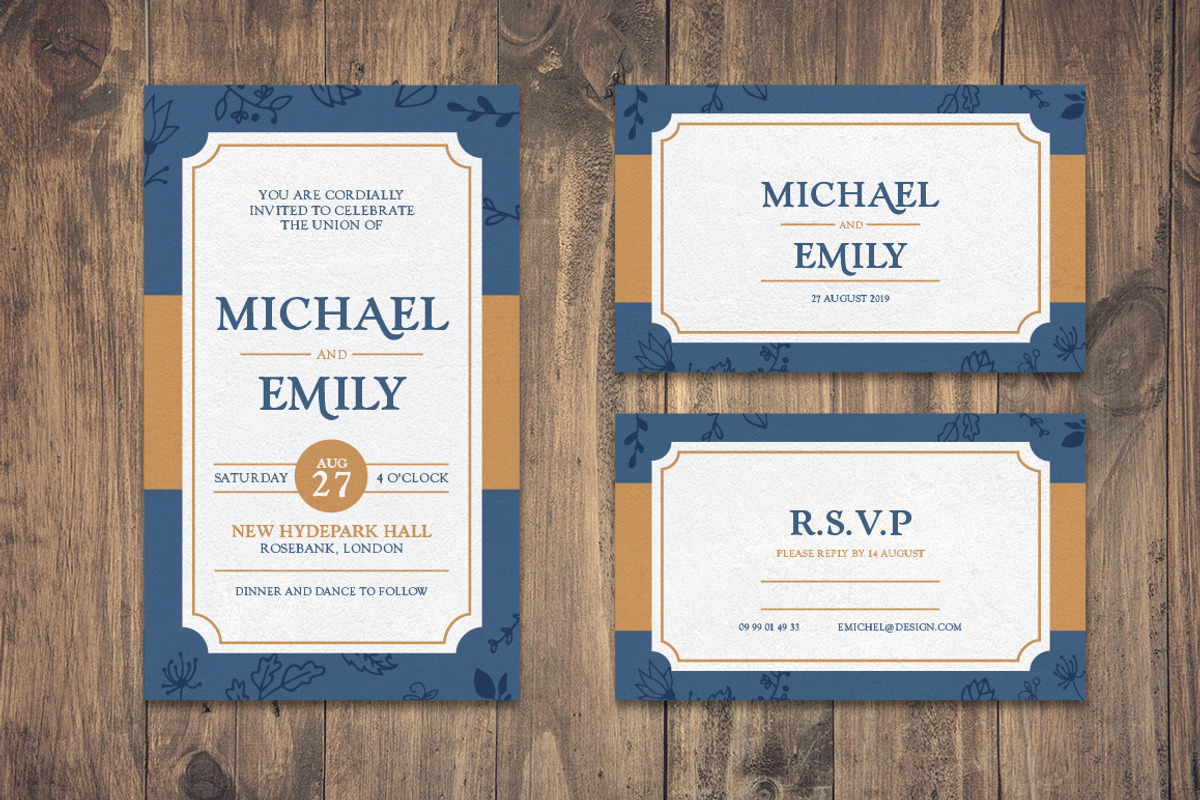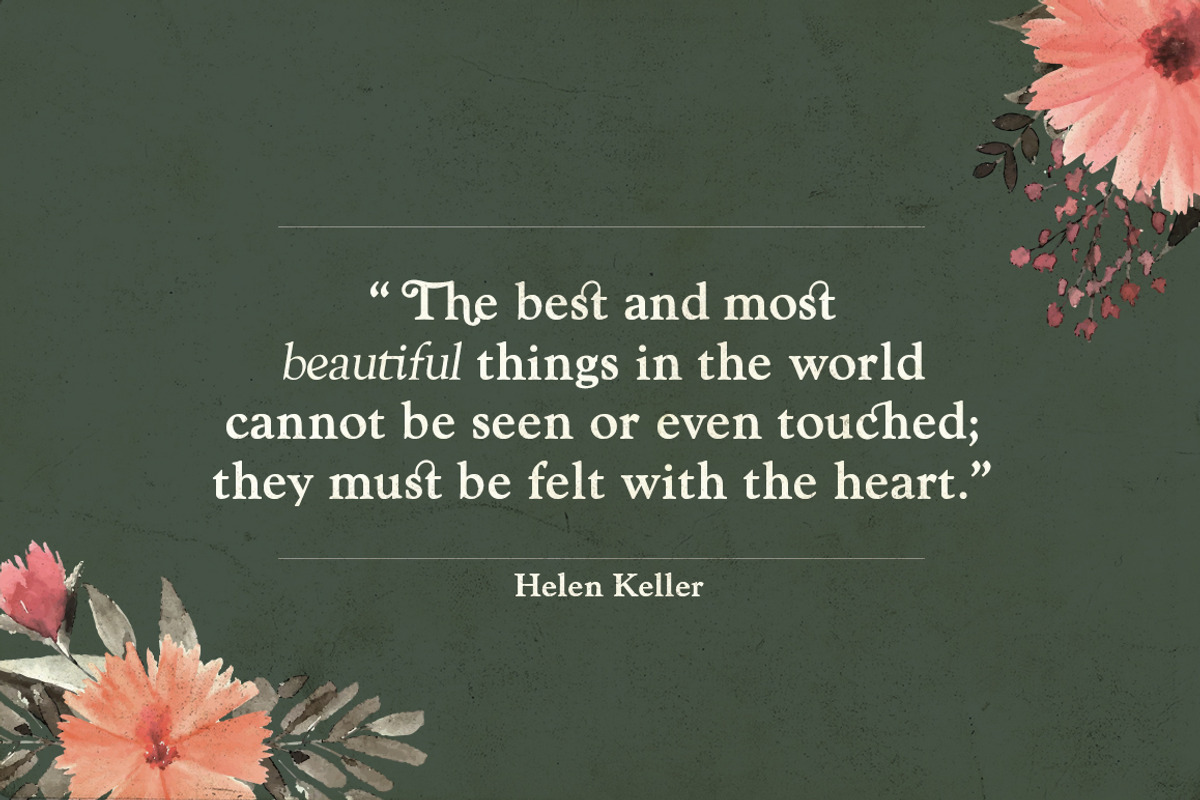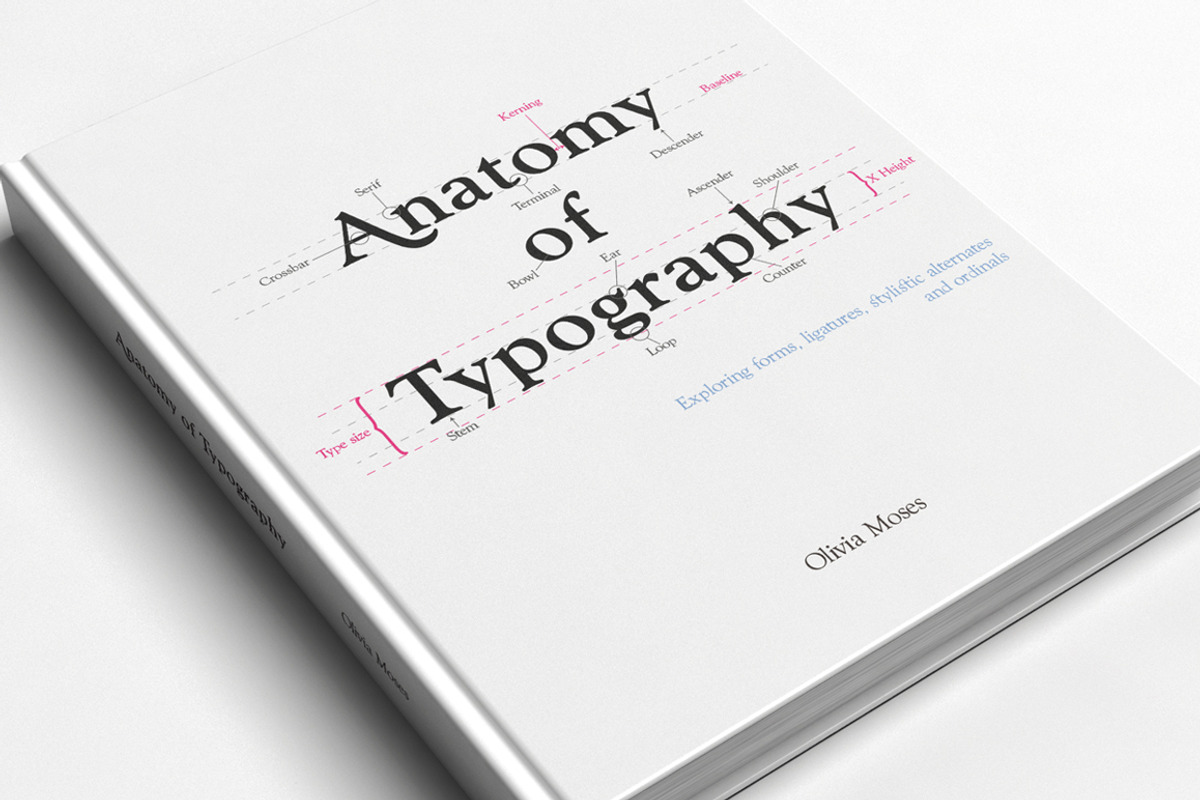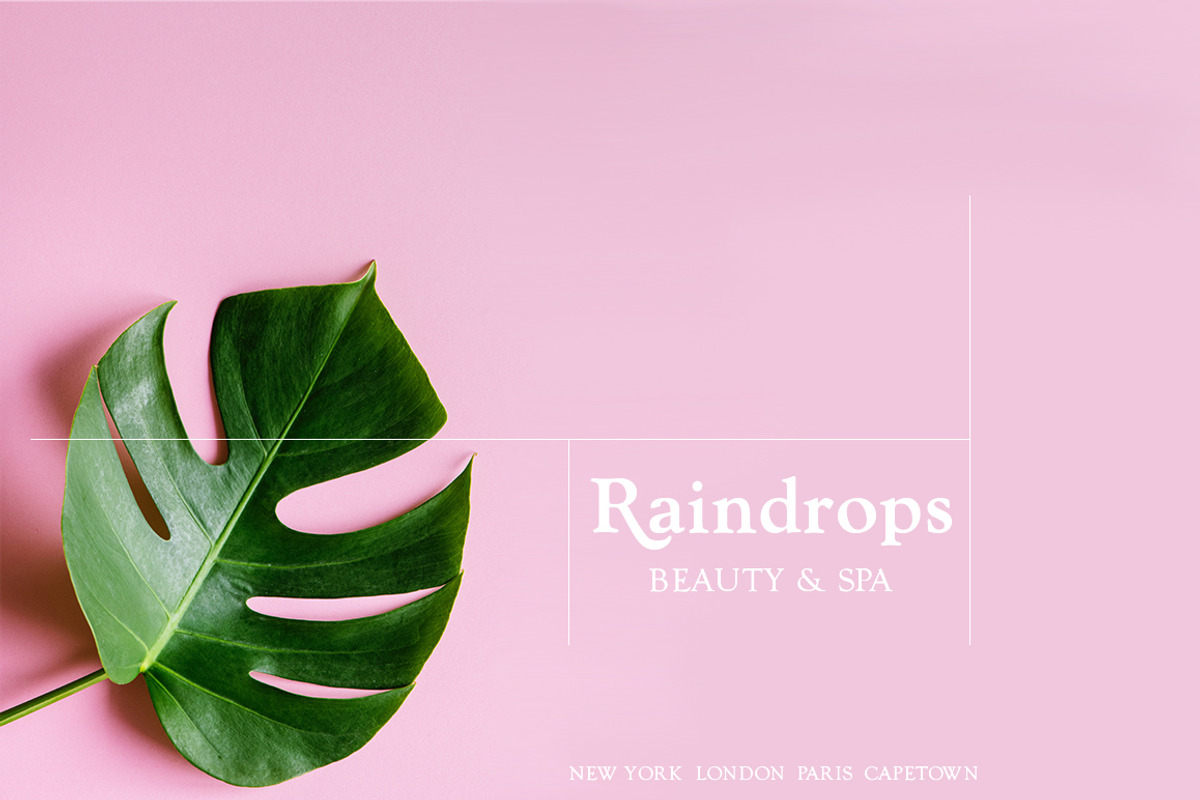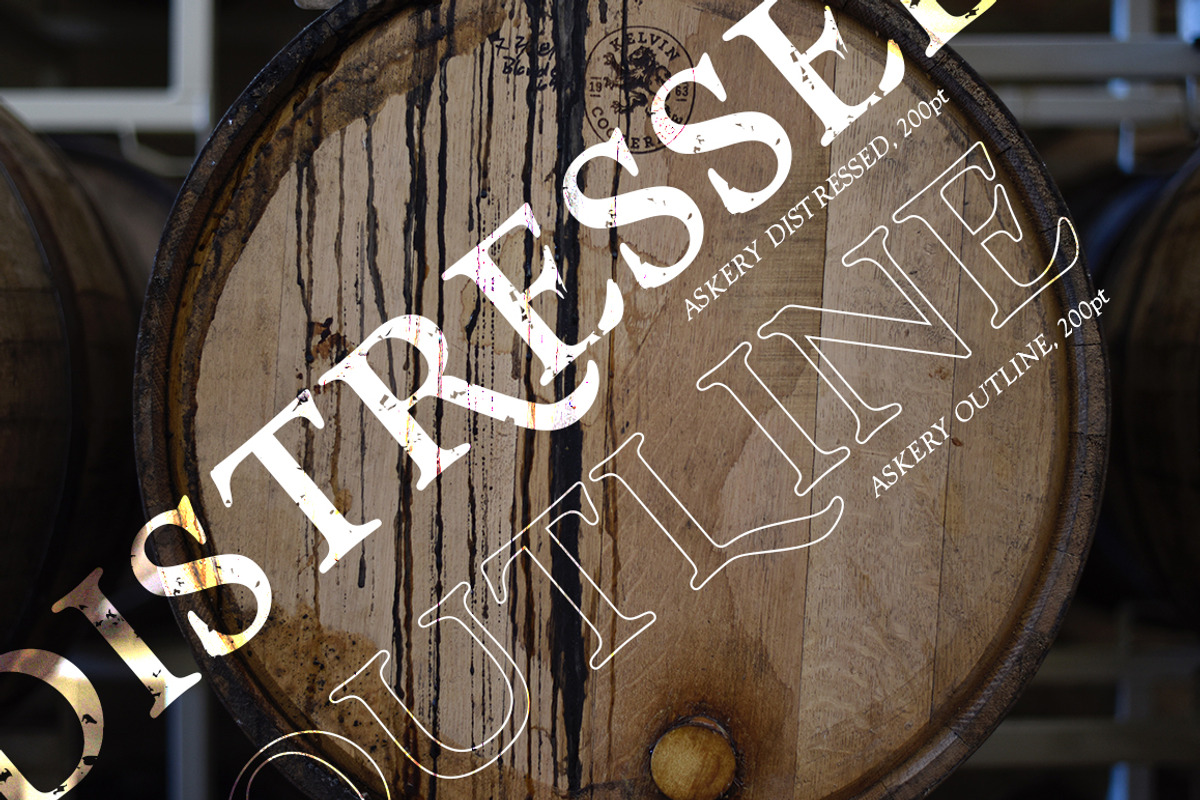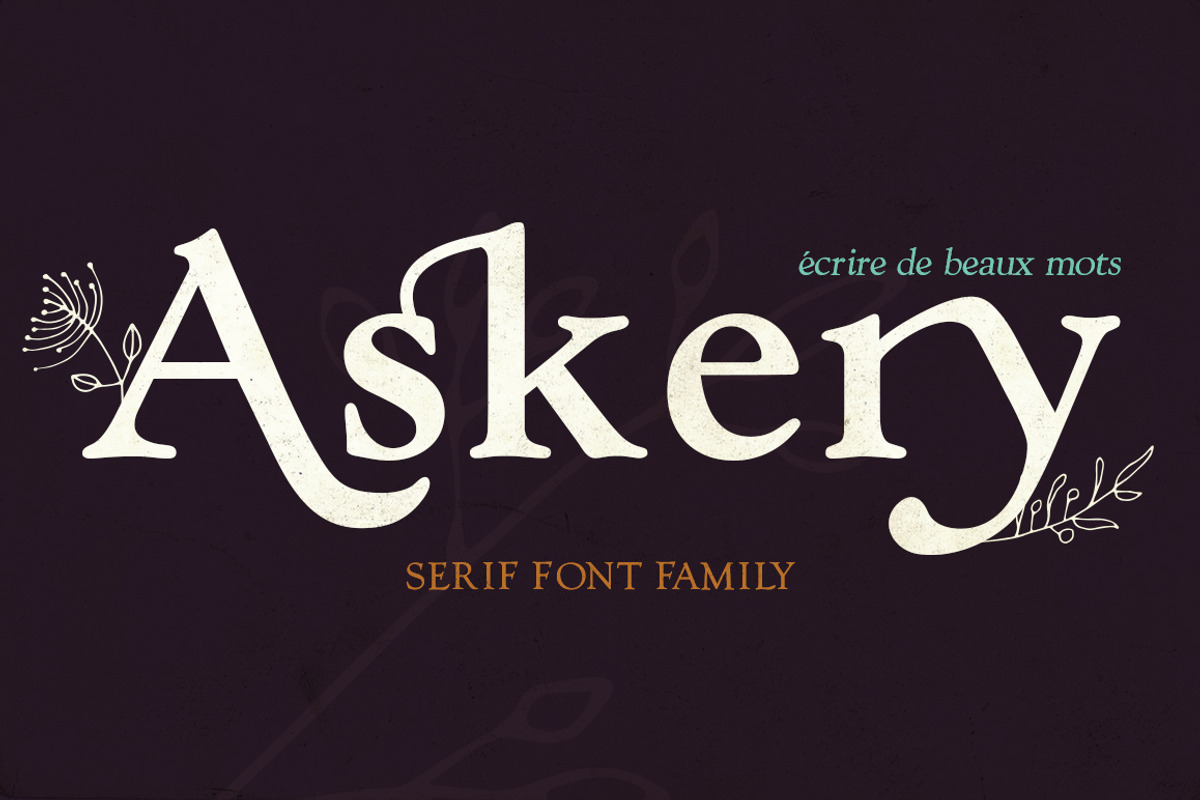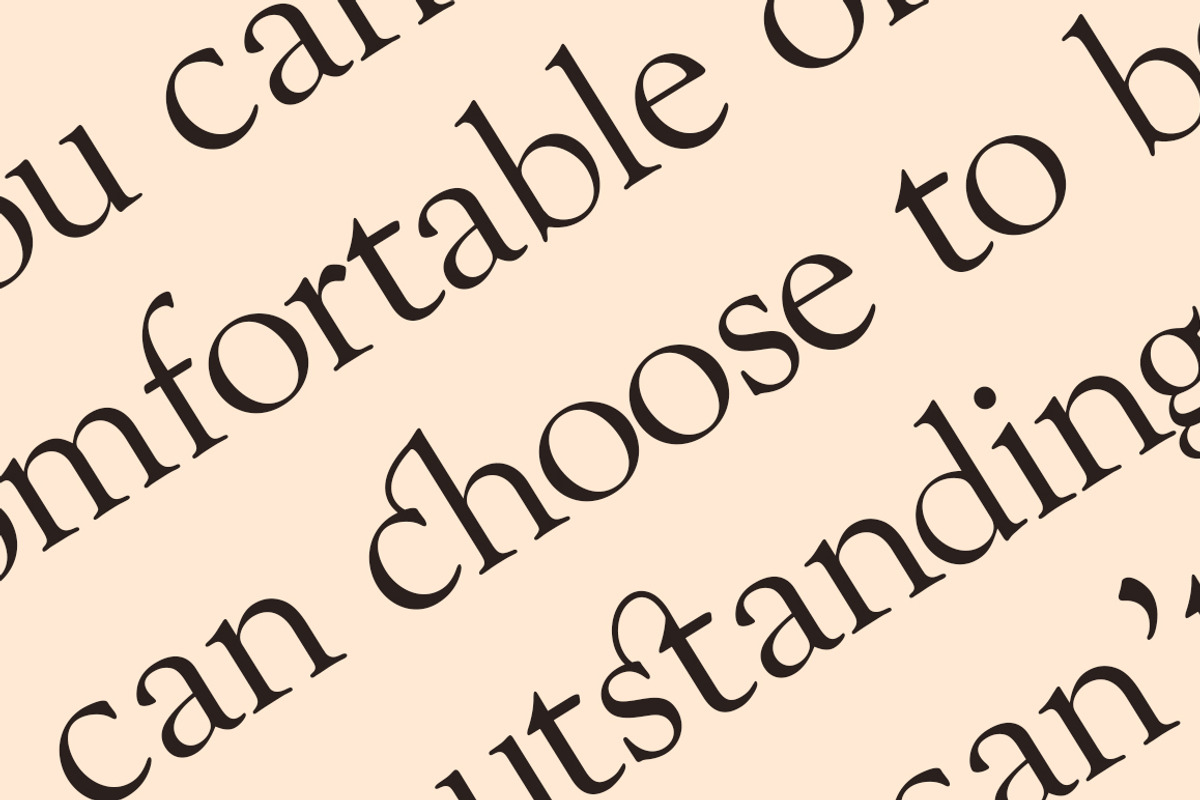
Askery Font Family
Askery will become your go-to font for many of your design needs. This perfect blend of old and new will work in many environments such as logos, headlines, packaging, posters, t-shirts and much more. Six fonts make up this family: Regular, Italic, Thin, Thin Italic, Distressed and Outline.
This collection features 387 glyphs including ligatures, alternates and ordinals. To access the OpenType features, you will need compatible software such as Photoshop, Illustrator, InDesign etc.
International designers, you have not been forgotten; the collection includes support for over 50+ languages including: Afrikaans, Albanian, Catalan, Croatian, Czech, Danish, Dutch, English, Estonian, Finnish, French German, Hungarian, Icelandic, Italian, Lithuanian, Maltese, Norwegian, Polish, Portuguese, Slovak, Slovenian, Spanish, Swedish, Turkish, Zulu and much more.